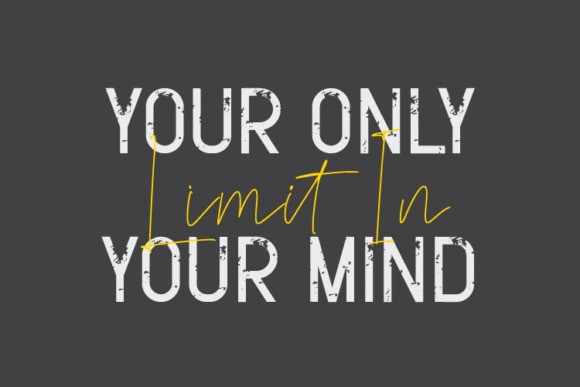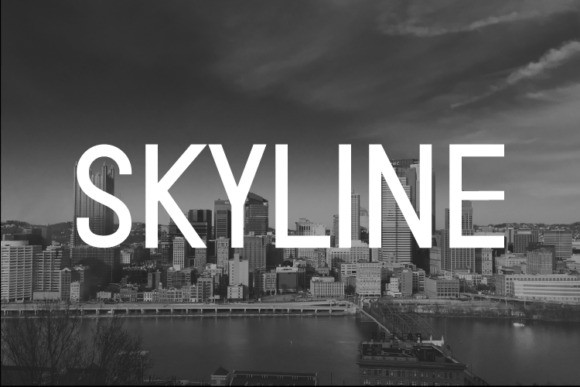
Riverna Side Font
Riverna Side Font is a duo-style font. Featuring the perfect amount of trendiness, this font will make your designs come to life. Don’t hesitate to add it to your creative projects, and be amazed by the fantastic results!